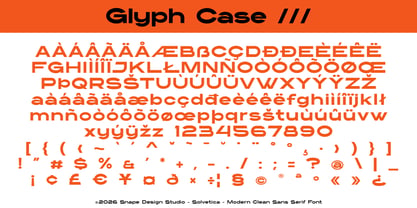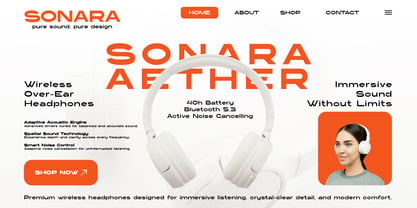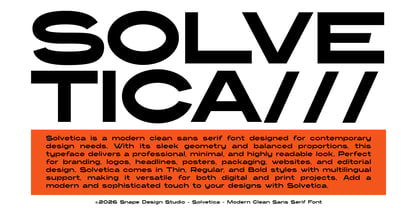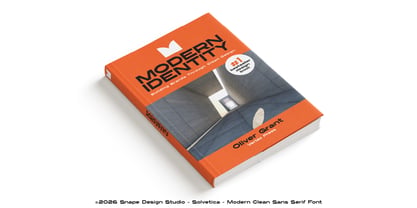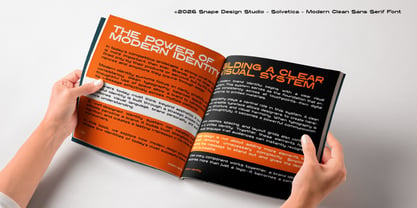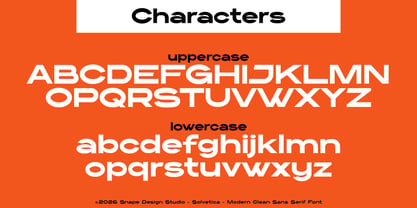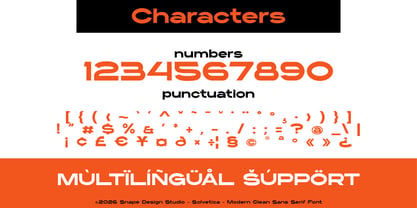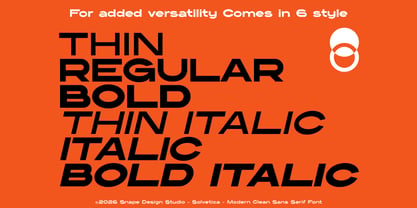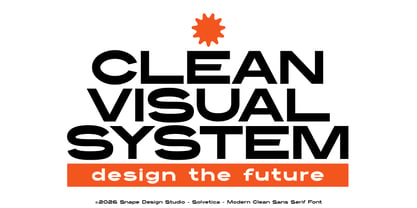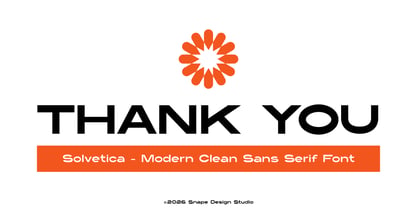
Solvetica
by snapedsgn
The Solvetica Font Family was designed by Ario Sabrang and published by snapedsgn. Solvetica contains 6 styles and family package options. More about this family
Solvetica is a modern clean sans serif font crafted to bring a sleek, professional, and contemporary feel to your design projects. Built with balanced proportions and smooth geometric shapes, this typeface offers excellent readability while maintaining a stylish minimalist aesthetic. Designed for versatility, Solvetica works perfectly across a wide range of creative applications from branding and logo design to editorial layouts, websites, packaging, posters, and social media graphics. Its clean structure makes it ideal for designers who want a modern, elegant, and timeless typographic look. Solvetica comes with three carefully designed weights: Thin, Regular, and Bold, allowing you to create strong visual hierarchy and flexible typography combinations. Whether you need a light and airy appearance or a bold statement headline, this font adapts easily to your design needs. In addition Font Features : Modern Clean Sans Serif Style Minimalist & Contemporary Design Thin, Regular, and Bold Weights Clear and Highly Readable Letterforms Multilingual Support Perfect for Digital & Print Design Perfect For : Logo & Branding Modern Posters & Headlines Website & UI Design Editorial & Magazine Layouts Social Media Graphics Packaging Design Corporate Identity Multilingual Support (35+ Languages) for global projects Available in Thin, Regular and Bold styles Add a touch of modern elegance and clean sophistication to your design work with Solvetica a versatile sans serif font made for today’s creative projects. If you have any inquiries or need assistance, please feel free to contact us. We appreciate your support in enhancing your creative projects! Best Regards, Snape Design Studio.
Designers: Ario Sabrang
Foundry: snapedsgn